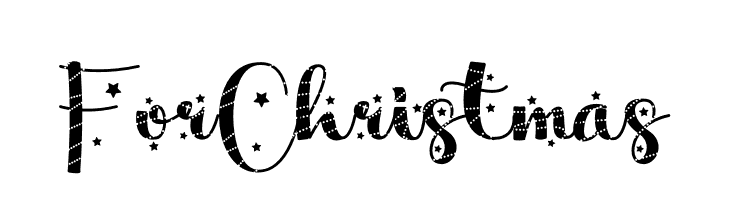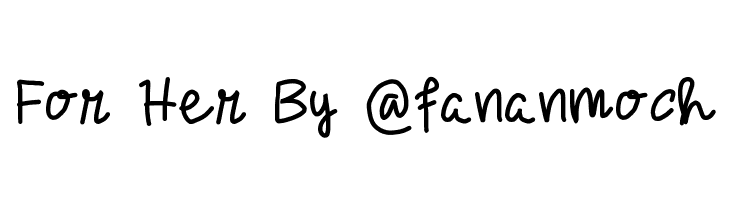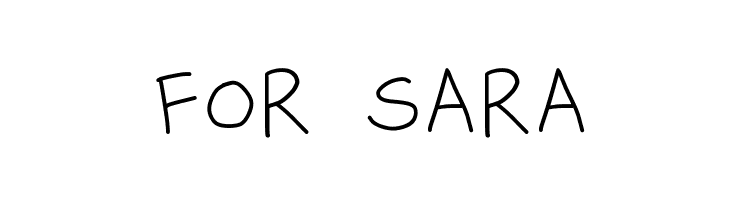
A playful, casual handwritten font with smooth, rounded edges.
A festive, decorative font with stars and stripes, perfect for holiday themes.
A playful, whimsical handwritten font with tall, narrow letters and a casual style.
A bold, handwritten font with a playful and energetic style.
A playful handwritten font with a casual and friendly style.
A playful, hand-drawn font with a whimsical and informal style.
A playful, handwritten font with a casual and friendly style.
A playful, handwritten font with a casual and friendly appearance.
An ornate, bird-themed decorative font with intricate designs.